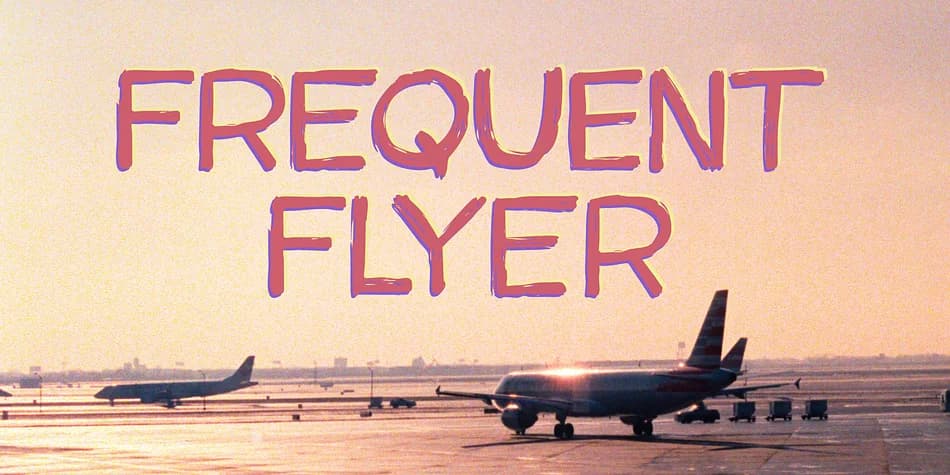
Frequent Flyer, designed by Hanoded, brings a weathered, eroded character to all-caps display work. The letterforms feature a distinctive gritty texture that suggests age and movement, as if they've been worn smooth by time and travel. It's the kind of typeface that feels immediately authentic, lending your design work personality and visual dimension rather than sterile, calculated precision.
This display font excels when you're chasing a vintage, lived-in aesthetic without compromising readability. Retro travel posters benefit hugely from its textured warmth and nostalgic edge. Concert ticket designs, grunge-inspired book covers, DIY rustic signage, and distressed product packaging all gain genuine credibility and character from this weathered approach. Aged vinyl sticker designs are another natural fit, especially when you need type that reads as established and handcrafted rather than mass-produced. Supporting multiple languages, the font is ideal for international branding projects and campaigns targeting audiences across different regions and markets worldwide.
- Eye-catching, Bold
Frequent Flyer Font is a display font that shines as a display or heading face. Pair it with a clean sans-serif or serif font for body text โ the contrast creates a clear hierarchy while the two styles stay balanced and easy to read.
Frequent Flyer Font
by Hanoded